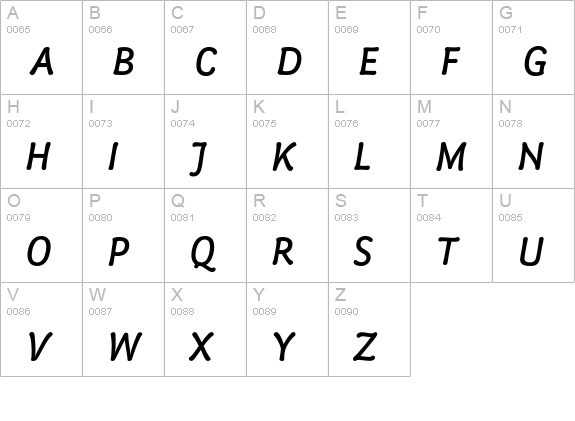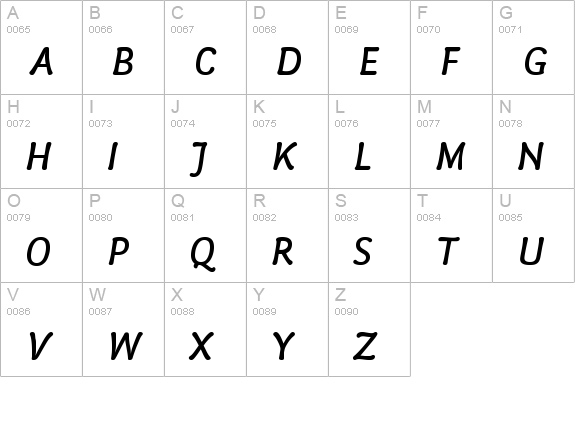
Poppl College One BQ Medium is a balanced, medium-weight variant in the Poppl typeface family \xE2\x80\x94 well suited to sub-headlines, navigation, and balanced editorial work.
Poppl College One BQ Medium font is a stylish and modern typeface that exudes professionalism and sophistication. Its clean lines and bold strokes make it perfect for a wide range of design projects, from business cards to advertising materials. This versatile font is ideal for both print and digital applications, thanks to its excellent legibility and readability. Whether you're creating a sleek logo or designing a sleek website, Poppl College One BQ Medium font will help you make a strong visual impact. Best of all, Poppl College One BQ Medium font is available for free download at FontsMarket.com. This means you can easily access this high-quality font without breaking the bank. So why wait? Download Poppl College One BQ Medium font today and elevate your design projects to the next level.